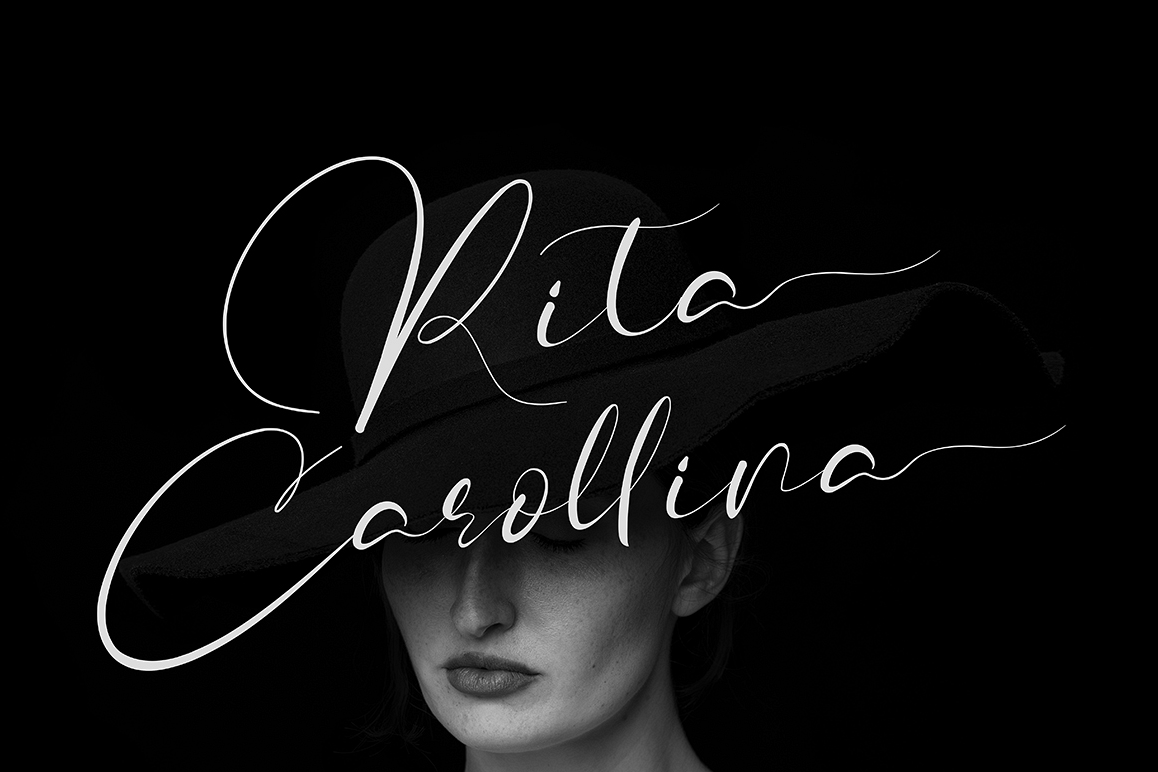
Rita Carollina
Rita Carollina is modern Script font with modern style, this font will perfect for many different project ex: quotes, logo, blog header, poster, wedding, banding, fashion, apparel, letter, invitation, stationery, etc...